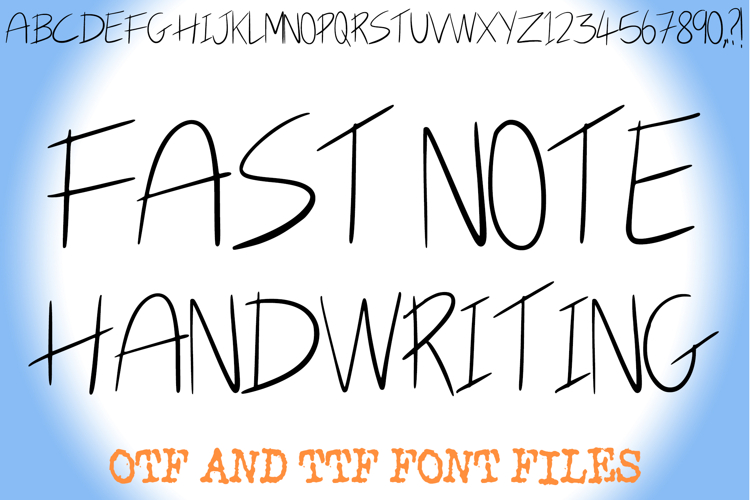
Fast Note Handwriting Alphabet Lettering ABC Scribble Font
Capture the spontaneity of everyday thoughts with Fast Note Handwriting Font! This delightfully dynamic typeface perfectly mimics the authentic, slightly hurried feel of quickly jotted notes and casual messages. It's more than just a font; it's an instant dose of informal charm and energetic designed to bring a unique, human touch to any creative project.
Each character in Fast Note Handwriting Font is crafted with a light, fluid stroke and a distinctive forward slant, as if penned swiftly by hand. Its informal yet clear forms make it an ideal choice for branding, social media posts, journal layouts, casual invitations, blog graphics, quick annotations, or any design calling for a unique blend of simplicity and approachability.
Whether you're creating engaging content, adding a custom feel to digital products, crafting cheerful messages, or printable materials, this font will bring an undeniable sense of fun, originality, and a handmade aesthetic to your work. Its legible yet slanted lines ensure readability while delivering a memorable visual experience.
If you're looking to infuse your designs with a sense of authenticity, charming informality, and an undeniable touch of spontaneity, Fast Note Handwriting Font is your ultimate tool. Jot down your ideas with speed and style!